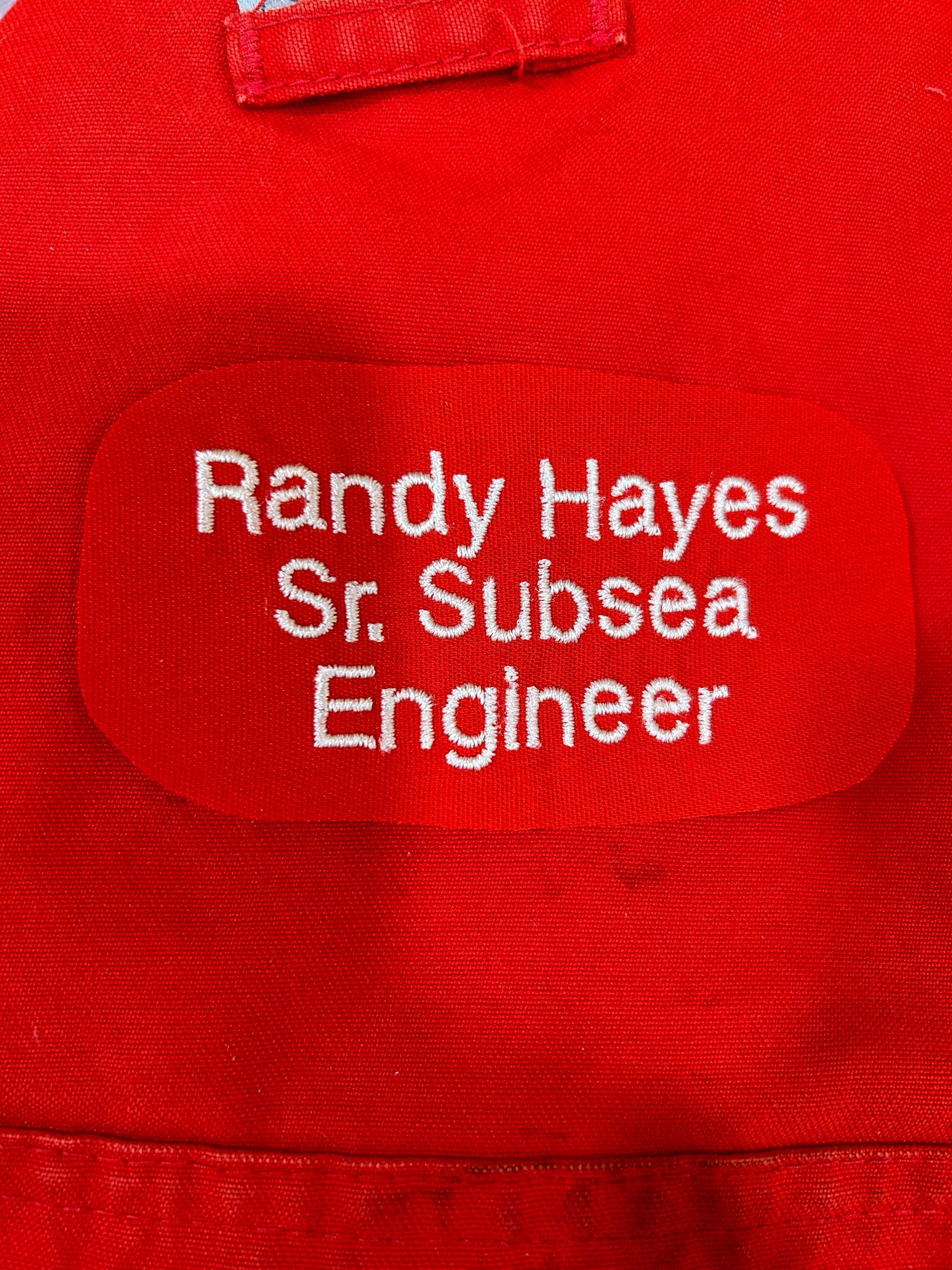
Helvetica - Mini Embroidery font
This mini machine embroidery font works well for labels, baby items, napkins, towels, monograms, and fine personalized details.
A useful digital download for makers who want clean small lettering for compact embroidery spaces.